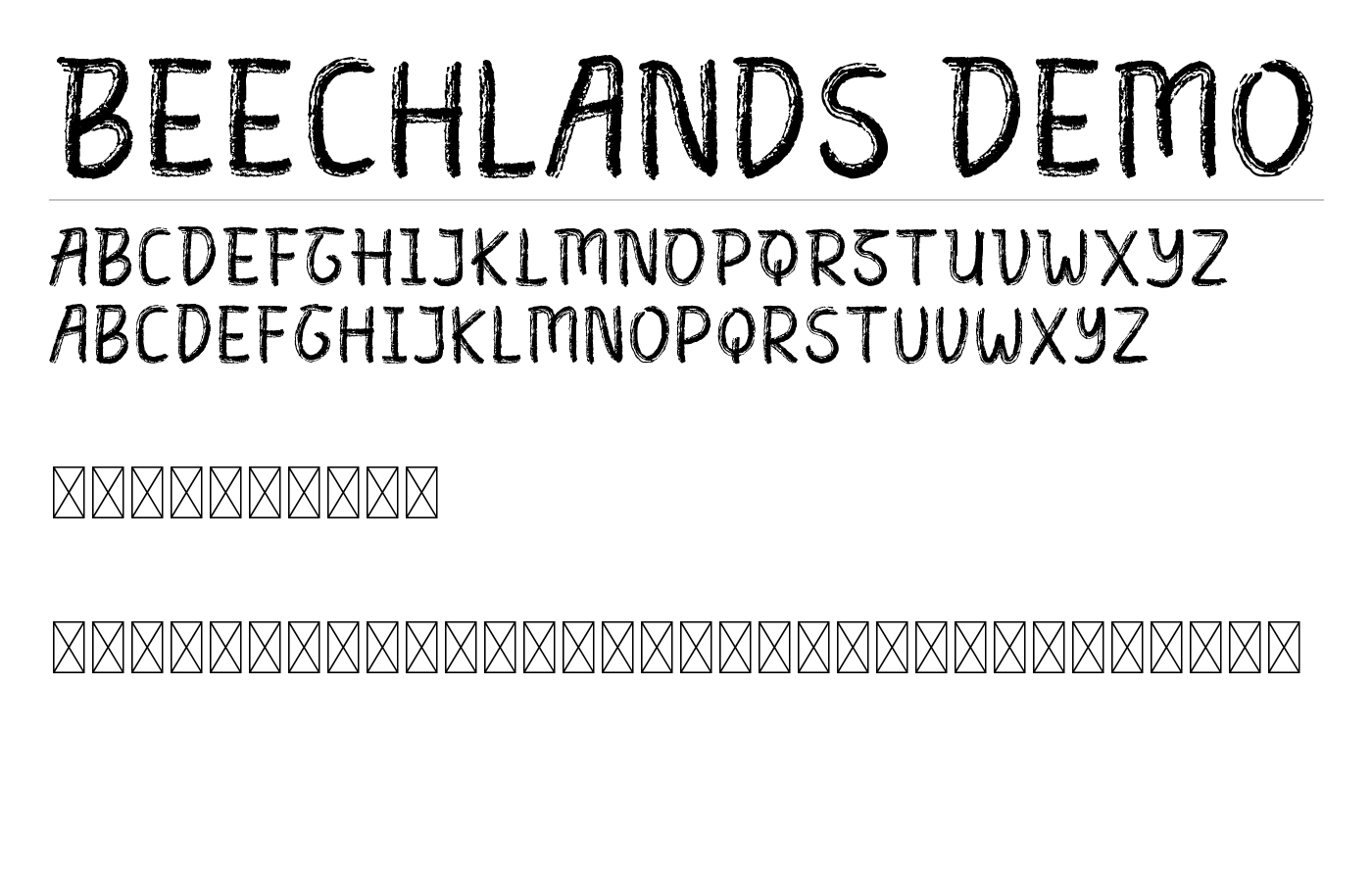
Beechlands Demo Font is a playful and hand-drawn sans serif typeface characterized by its rough, textured strokes and irregular shapes that give it a casual, artistic feel. With its tall, narrow letterforms and slightly uneven lines, it conveys a friendly, creative personality perfect for informal branding, posters, or designs that want to evoke a handcrafted or whimsical vibe. This font works best in display settings where its unique texture and charm can stand out effectively.
Beechlands Demo Font
About Beechlands Demo Font